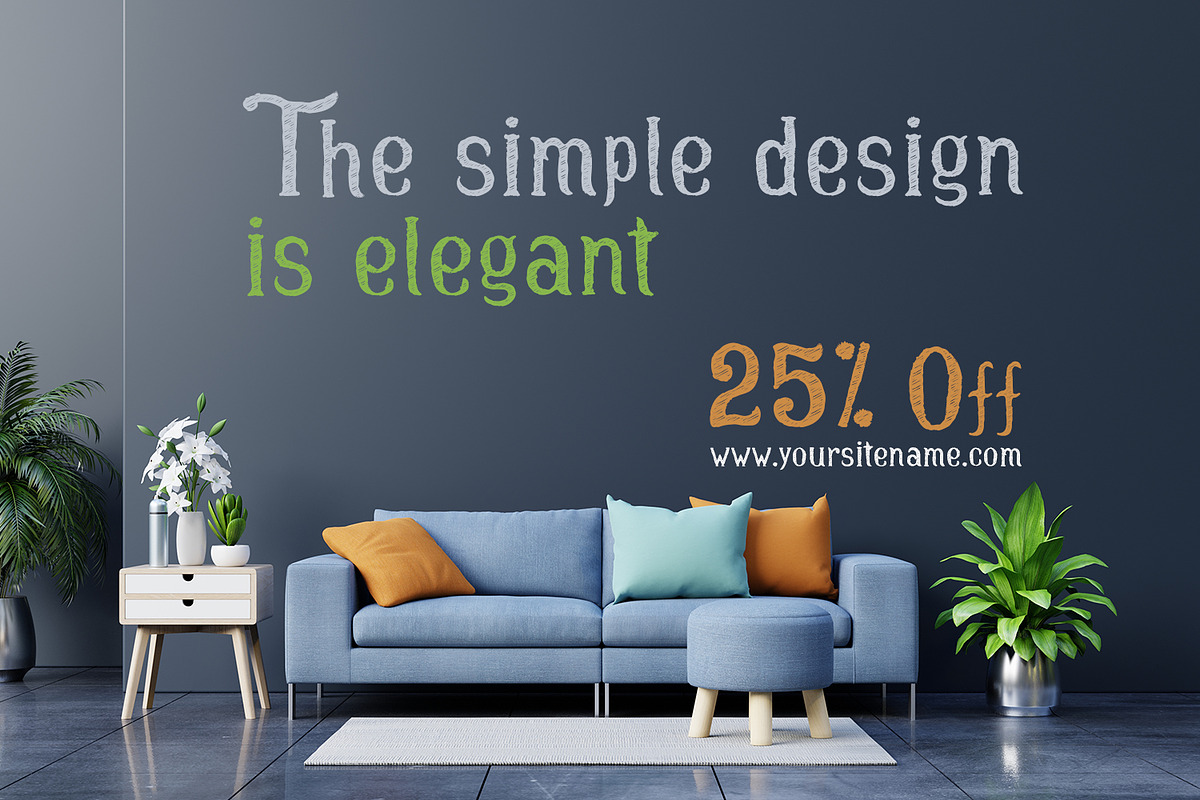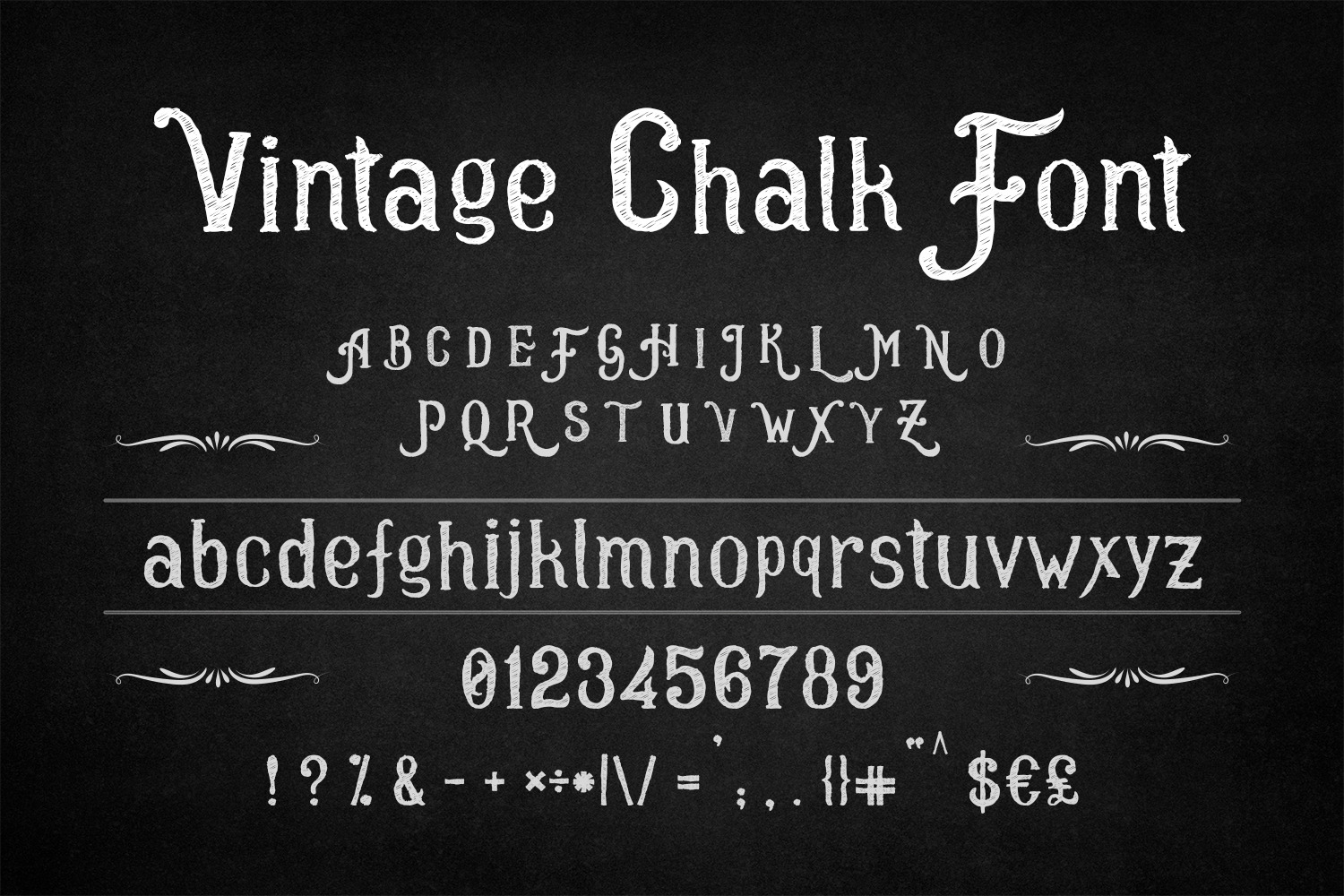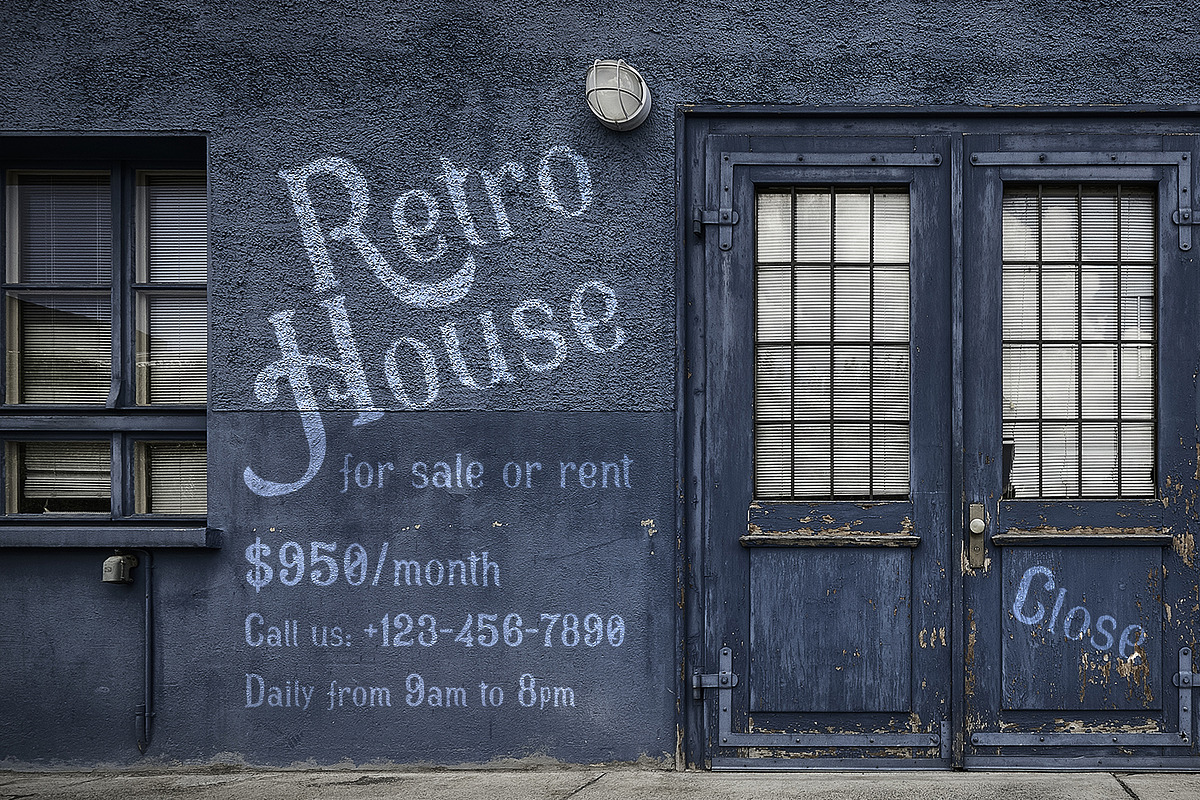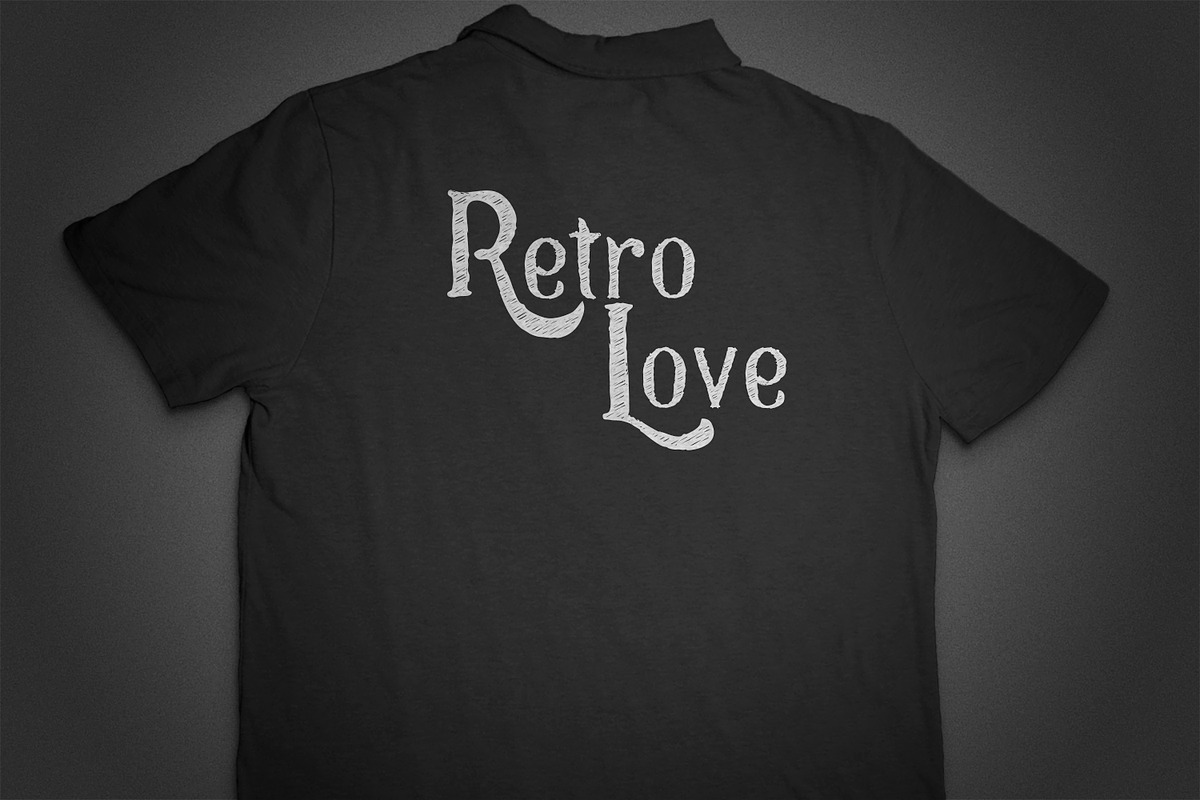
Vintage Chalk Font
Vintage Chalk is a unique and distinct handwritten font. Fall in love with its incredibly versatile style and use it to create gorgeous wedding invitations, beautiful stationary art, eye-catching social media posts, and much more!